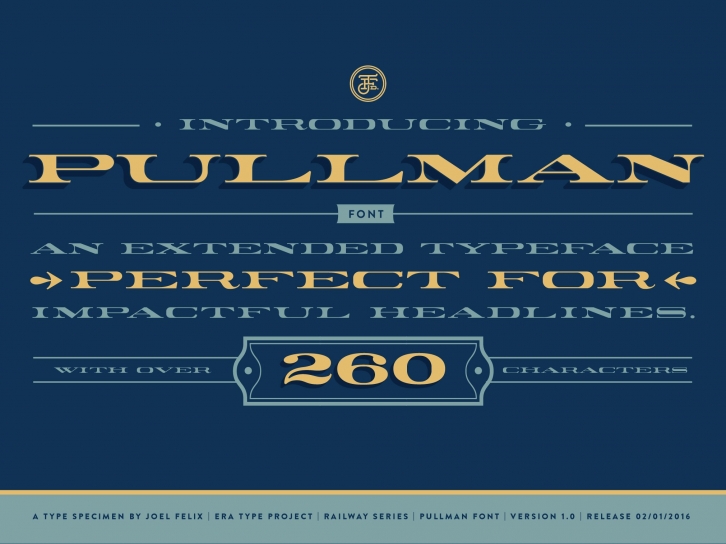
Pullman Extended is a beautiful typeface inspired by vintage railway typography. It's a tribute to the period in american history where the "Iron Horse" ruled in transportation, and pays homage to the iconic ultra-extended lettering that was painted on the exteriors of passenger cars.
- 1 style
- Extended weight
- Stylistic alternates
- Uppercase Only
- Numerals & Punctuation
- 260+ glyphs per style
- Supports 75+ Latin based languages